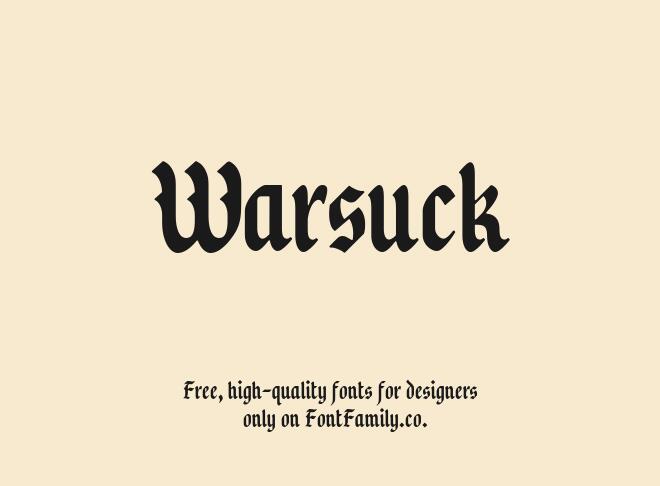
Warsuck Font
Warsuck Font is a bold, playful, and rustic typeface that embodies a retro aesthetic. This font is perfect for those who wish to bring a vintage charm to their designs. Its bold letterforms, characterized by their unique brush strokes, make it stand out in display uses like headlines, posters, and logos. Warsuck Font bears a resemblance to the classic letterpress styles but with a modern twist, making it a versatile choice for a wide range of design projects. The font's playful nature makes it a great choice for children's book covers, cartoon illustrations, and playful branding. It is free to download and use for personal projects, making it a valuable addition to any designer's toolkit.